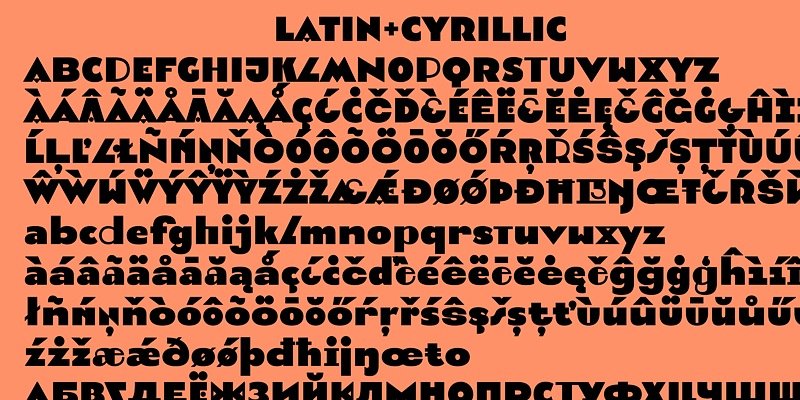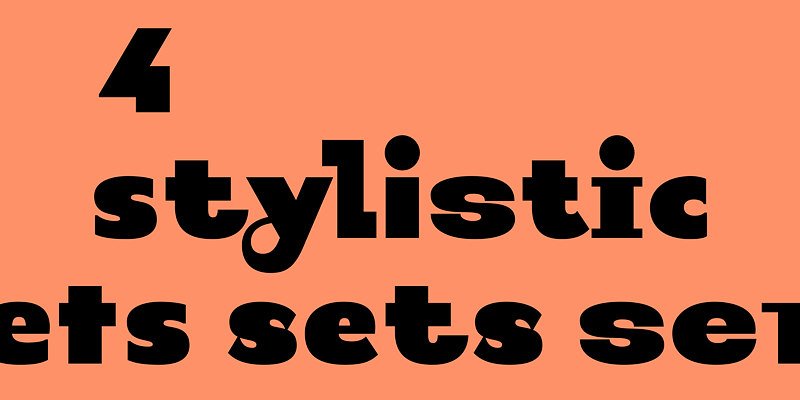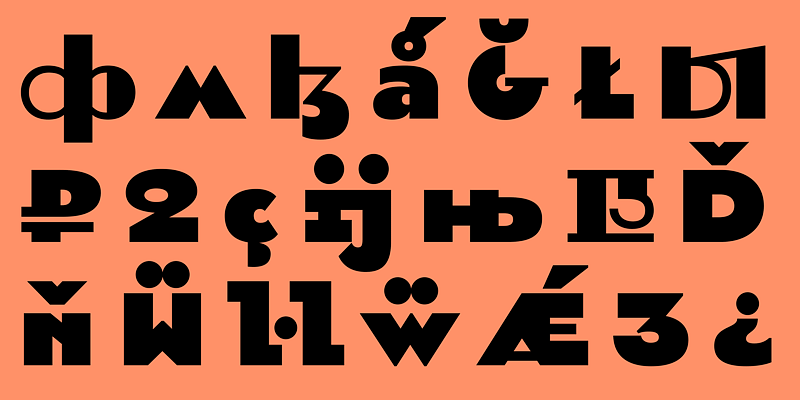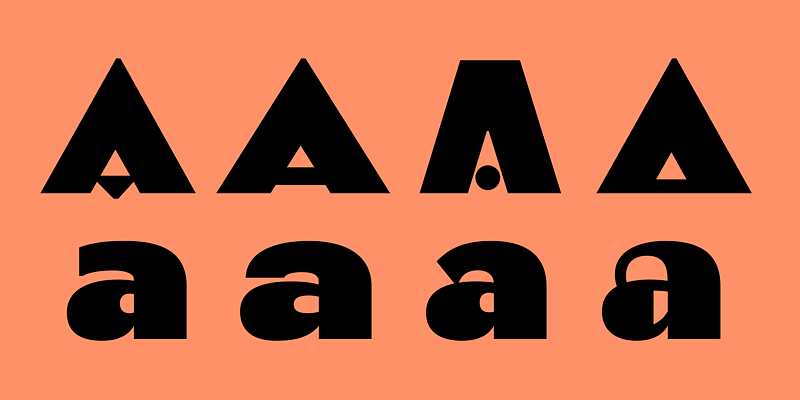
Pilar, a geometric sans serif, has been designed for large display purposes. It is a contemporary reworking of the typography of European art déco. The first version of this typeface was drawn by Yury Ostromentsky for the headlines of Bol’shoy Gorod (Big City) magazine in 2012. The typeface now has four stylistic sets, with four sets of alphanumeric glyphs, one default and three alternates. Every letter comes in four different designs. The four sets are called: Regular Open, Wide Closed, Narrow and Wild. With this variability, one and the same word or phrase can be given a different look while remaining within one graphic system.
Ilya Ruderman and Yury Ostromentsky, founders of CSTM Fonts (2014) and font distributor type.today (2016) are both graphic and type designers.
They graduated from Moscow State University of Print (Graphic Design Department), where they took Alexander Tarbeev’s classes. Later Ilya Ruderman graduated from Type & Media (Royal Academy of Art), the Hague, the Netherlands. After graduation he was a tutor of Type&Typography course at British Higher School of Art and Design, Moscow (2008-2015), and an art-director of information agency RIA Novosti. He designed Cyrillic versions of typefaces such as Lava, Graphik, Neutraface and others, for Typotheque, Commercial Type, Typonine and House Industries. He is an author of: Permian typeface, Big City Grotesque and several other corporate typefaces.
Before 2013 Yury Ostromentsky worked mostly as an editorial designer and art-director of BigCity Magazine, where he used his personal lettering that was the base of the Pilar typeface. He is an author of several book series designs and logotypes.
Both typefaces of Ilya Ruderman and Yury Ostromentsky were the winners of such type design competitions as Modern Cyrillic 2009, Modern Cyrillic 2014, Granshan 2011, European Design Award 2012. Kazimir typeface and Tele2 Typefamily, the CSTM Fonts’s latest releases, were among the winners of Granshan 2015.